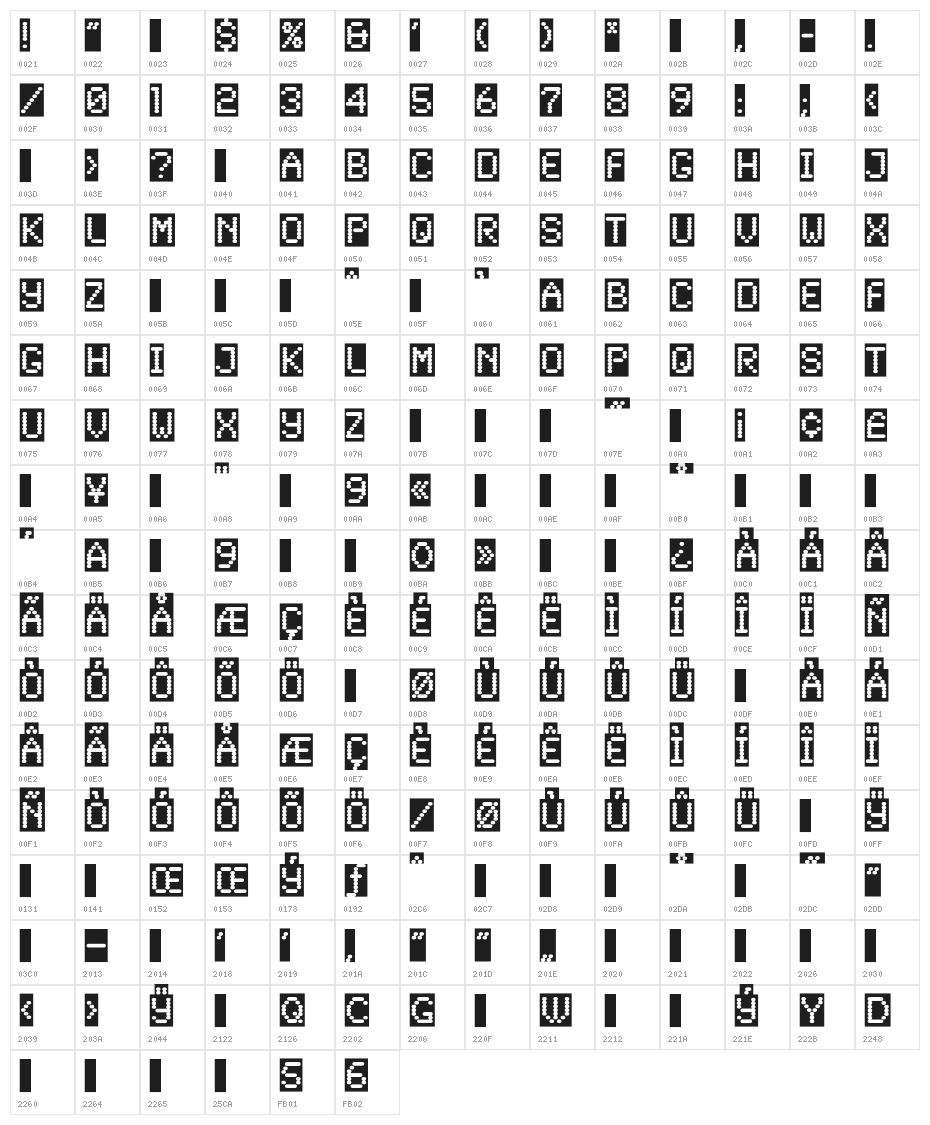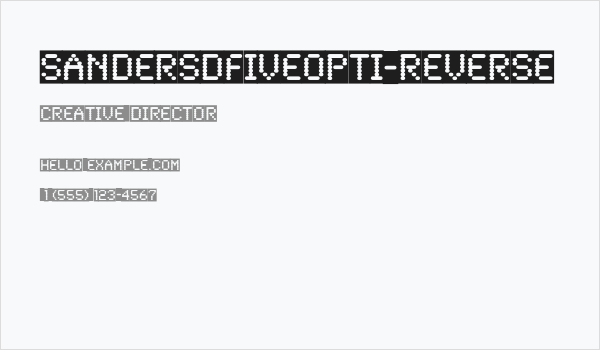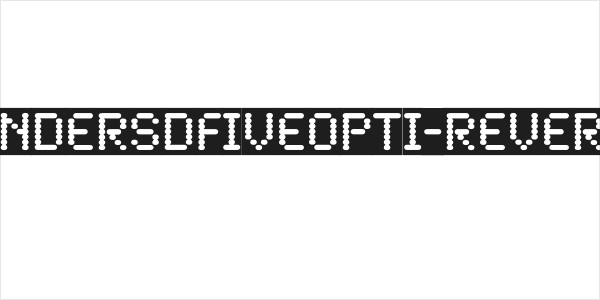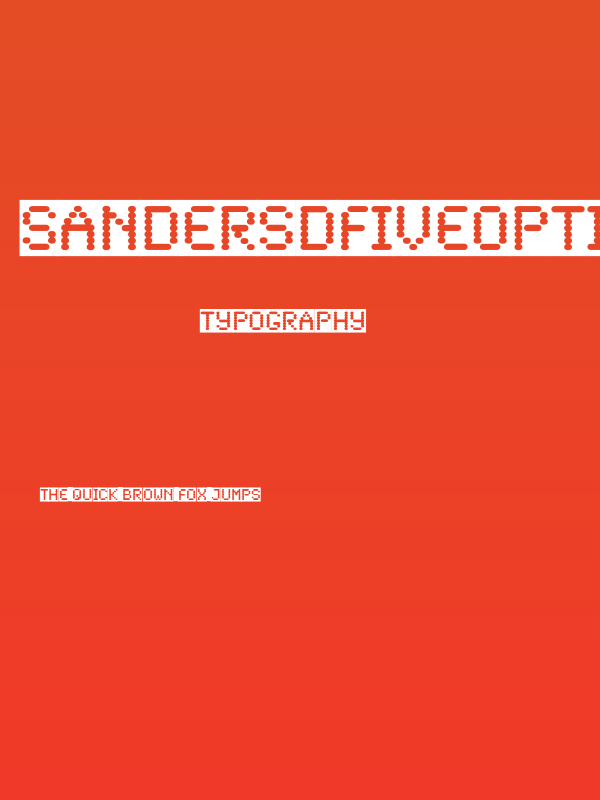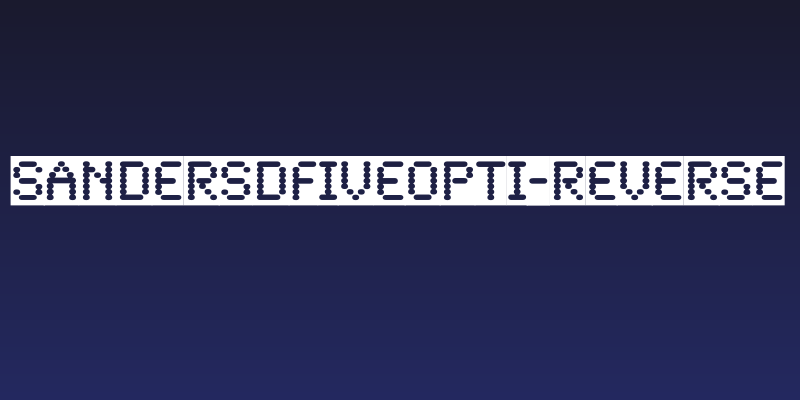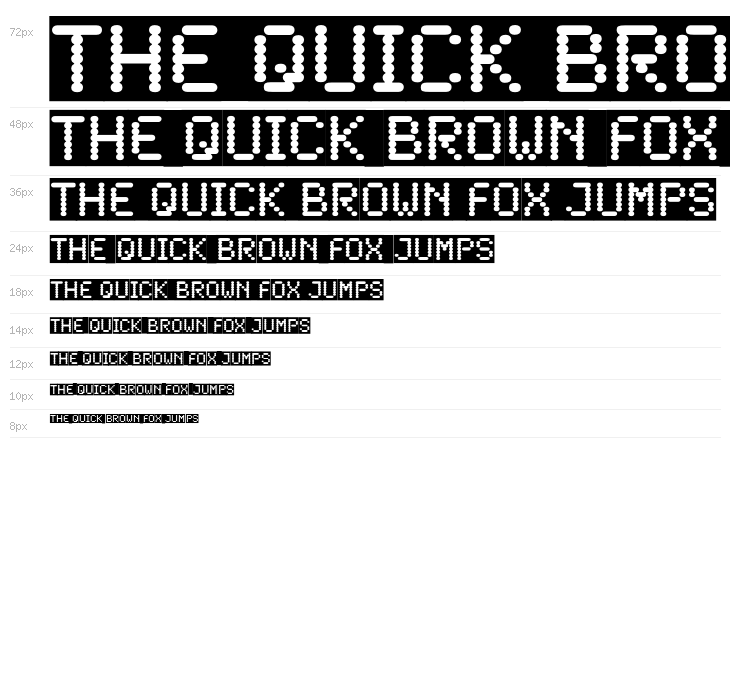
SandersDFiveOpti-Reverse Font
SandersDFiveOpti-Reverse Description
This font features a unique dot matrix style, where each character is constructed from a series of evenly spaced dots. The design is reminiscent of retro digital displays, offering a nostalgic yet modern appeal. The characters are uniformly aligned, providing a consistent and structured appearance. This font is particularly striking in its ability to convey a sense of technology and innovation, making it ideal for projects that require a futuristic or digital aesthetic. The spacing between the dots is precise, ensuring readability while maintaining its distinctive style.
| Use Case | Headlines, Logos, Digital Displays |
| Proposed Projects | Ideal for digital displays, tech-themed designs, retro gaming graphics, and innovative branding projects. |